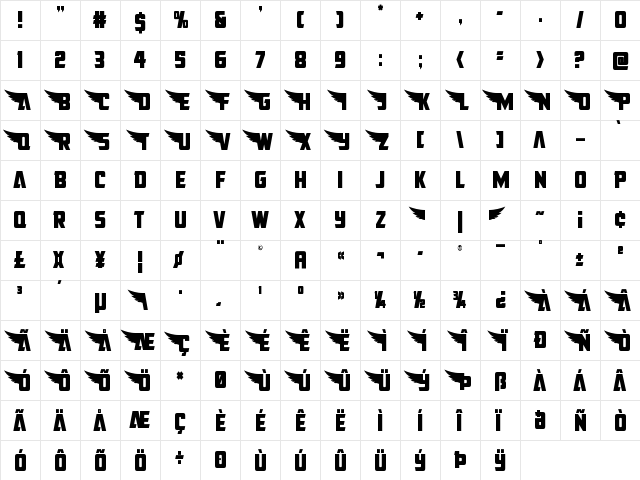
American Kestrel Straight Cond Condensed Font Preview
American Kestrel Straight Cond Condensed
Design Context for American Kestrel Straight Cond Typeface
American Kestrel Straight Cond is a composed and adaptable typeface that performs quietly and consistently across a wide range of design contexts. The condensed width makes it efficient for tight spaces without sacrificing legibility.